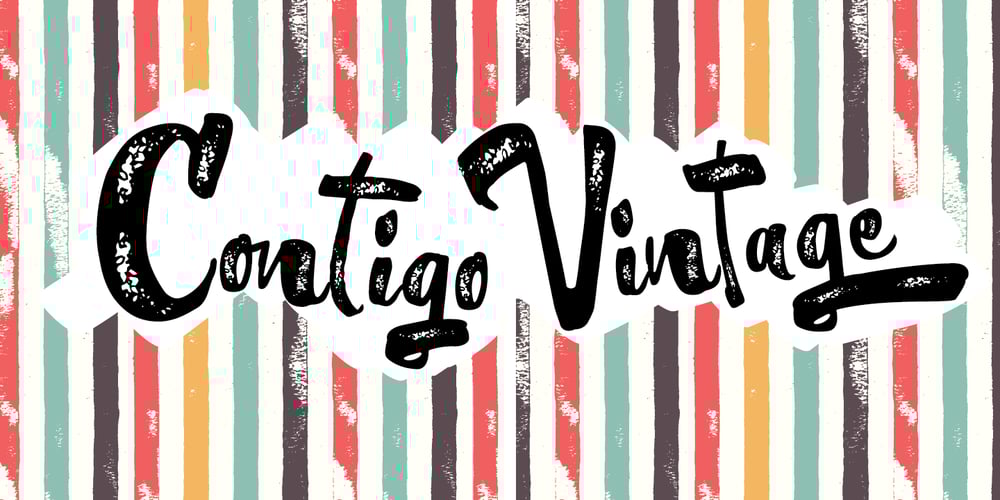
Contigo Vintage Font Family was designed by Giuseppe Salerno, Paco González and published by Resistenza. Contigo Vintage contains 2 styles and family package options. This new brushy script screams Summer! Make any layout look refreshing with Contigo Vintage.Designed with pointed brush and indian ink, this script has a lot of contrast thanks to ‘pressure and release’ technique.Perfect for food and restauration industry, packaging, illustration, greeting cards…